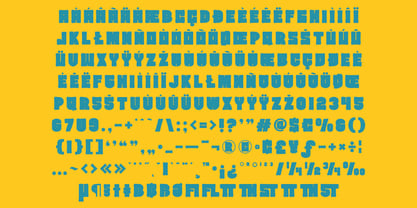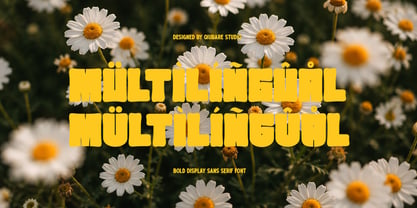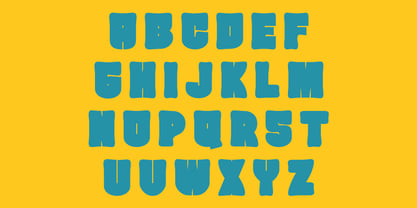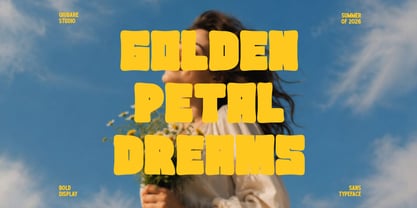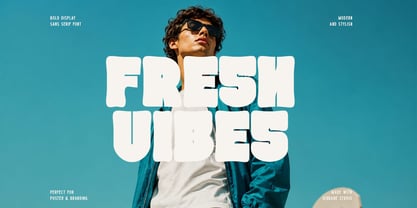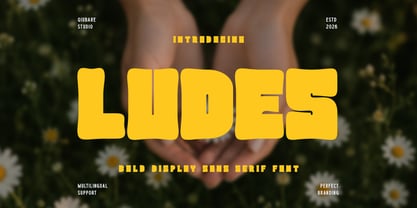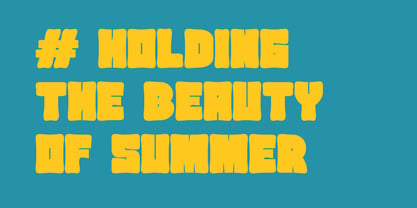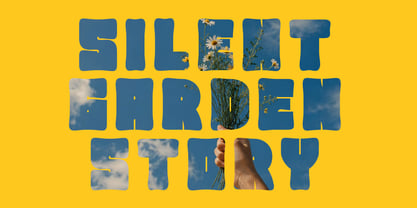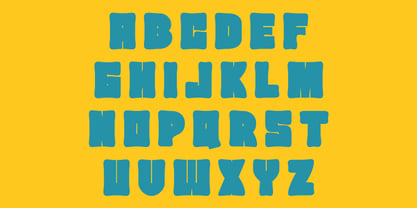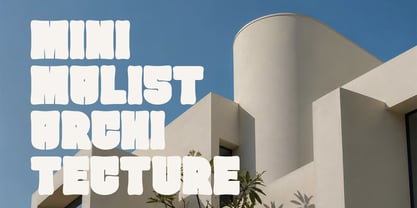
Ludes
Ludes is a bold display sans serif font with a playful, chunky, and eye-catching personality. Designed to create strong visual impact, Ludes combines soft rounded corners with thick letterforms, making it perfect for modern branding and creative typography projects.
Inspired by retro aesthetics, summer vibes, and contemporary design trends, Ludes delivers a fun and energetic appearance while maintaining excellent readability. Its bold shapes make every word stand out, making it ideal for headlines, posters, logos, packaging, and social media content.
Whether you're designing a fashion brand, product packaging, music poster, café branding, YouTube thumbnail, children's products, or creative advertising campaigns, Ludes brings warmth, friendliness, and personality to every design.
Features:
* Bold Display Sans Serif
* Uppercase & Lowercase
* Numerals & Punctuation
* Multilingual Support
* Modern & Playful Style
* High Readability
Perfect For:
* Logo Design
* Branding
* Packaging
* Posters
* Headlines
* Social Media
* Product Labels
* Fashion Design
* Café & Restaurant Branding
* Children's Products
* YouTube Thumbnails
* Merchandise
* Advertising
* Editorial Design
* Event Promotions